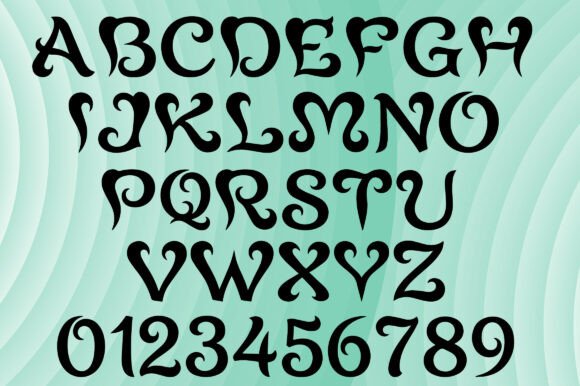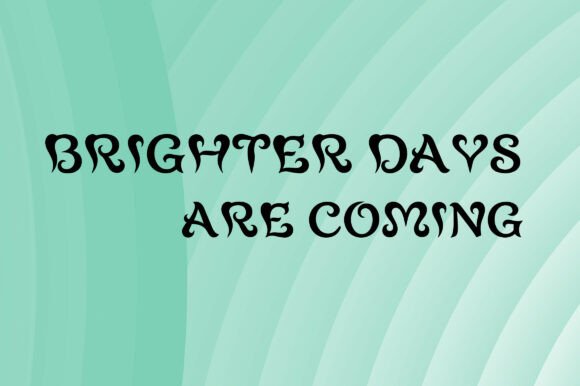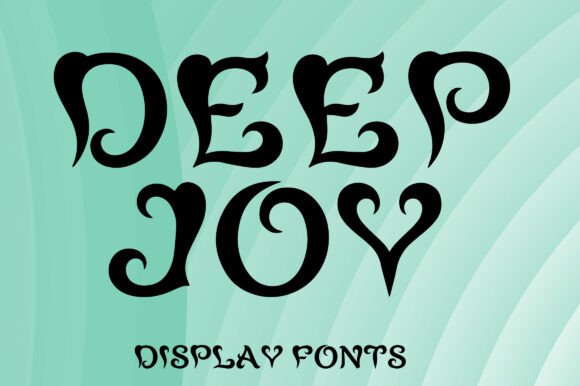
Introducing Deep Joy Font: Unleash Whimsy and Wonder in Your Designs
Are you tired of using the same old fonts in your designs? Do you want to add a touch of magic and whimsy to your creative projects? Look no further than Deep Joy, a playfully whimsical display font that’s sure to delight. With its high-contrast strokes and sharpened points, Deep Joy defies convention and brings a unique blend of retro psychedelic art and fairytale charm to your designs.
The Inspiration Behind Deep Joy
Deep Joy is more than just a font – it’s an experience. Its creators drew inspiration from the fantastical and often surreal world of retro psychedelic art, combined with the timeless charm of fairytale illustrations. The result is a font that’s equal parts nostalgic and cutting-edge, with a distinctive personality that’s sure to capture the imagination of your audience.
What Makes Deep Joy So Special?
So, what sets Deep Joy apart from other fonts on the market? Here are just a few of its standout features:
• High-contrast strokes: Deep Joy’s bold, expressive strokes are perfect for creating eye-catching headlines and titles that demand attention.
• Sharpened points: The font’s sharpened points add a touch of edginess and sophistication, making it perfect for designs that require a bit of attitude.
• Retro psychedelic vibe: Deep Joy’s retro psychedelic inspiration gives it a unique, otherworldly feel that’s sure to transport your audience to a world of wonder and enchantment.
• Fairytale charm: With its delicate, whimsical lines and curves, Deep Joy also has a distinctly fairytale-like quality that’s perfect for designs that require a touch of magic and whimsy.
Perfect for Fantasy Book Covers and More
Deep Joy is the perfect font for a wide range of creative projects, including:
• Fantasy book covers: Add a touch of magic and wonder to your book covers with Deep Joy’s enchanting, otherworldly charm.
• Creative branding: Use Deep Joy to create a distinctive brand identity that’s sure to stand out from the crowd.
• Children’s toy packaging: Deep Joy’s playful, whimsical vibe makes it perfect for children’s toy packaging that’s both fun and eye-catching.
• Event posters: Create eye-catching event posters that demand attention with Deep Joy’s bold, expressive strokes.
Beyond the Ordinary: Using Deep Joy in Your Designs
Deep Joy is more than just a font – it’s a design statement. Here are a few ideas for using Deep Joy in your designs:
• Logos for boutiques and small businesses: Use Deep Joy to create a distinctive logo that’s sure to capture the imagination of your customers.
• Social media headlines: Add a touch of magic and whimsy to your social media headlines with Deep Joy’s bold, expressive strokes.
• Invitations and greeting cards: Use Deep Joy to create invitations and greeting cards that are both fun and memorable.
Get Ready to Fall in Love with Deep Joy
If you’re looking for a font that’s a little bit quirky, a little bit magical, and a whole lot of fun, then Deep Joy is the perfect choice. With its unique blend of retro psychedelic art and fairytale charm, Deep Joy is sure to capture the imagination of your audience and leave a lasting impression. So why wait? Download Deep Joy today and unleash a world of wonder and enchantment in your designs!